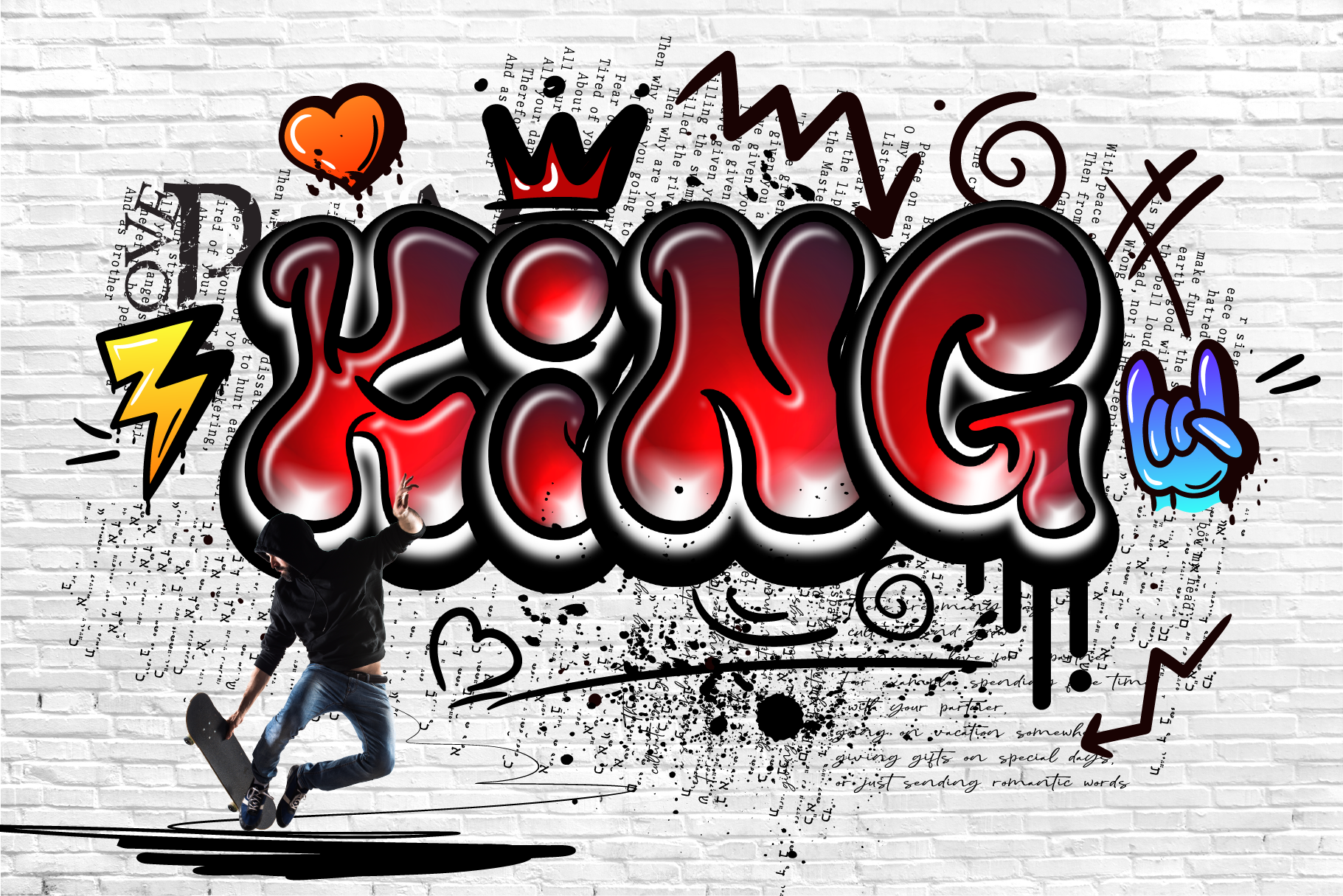
King Graffiti Font
Discover the edgy and expressive world of King Graffiti font. Embrace urban artistry with this bold and dynamic typeface that captures the essence of street culture. Perfect for eye-catching designs that demand attention.